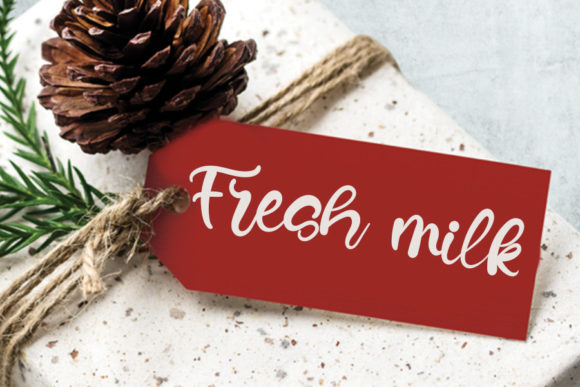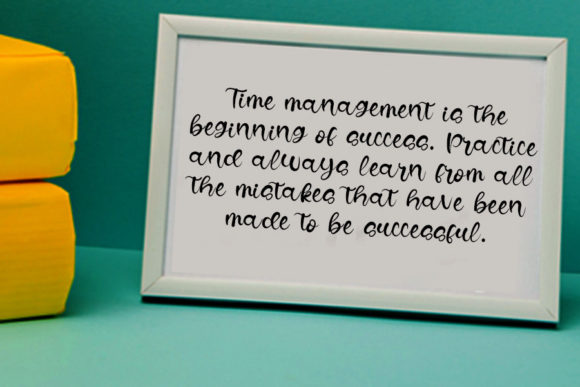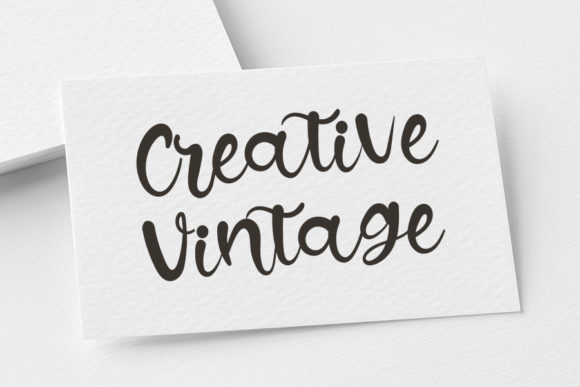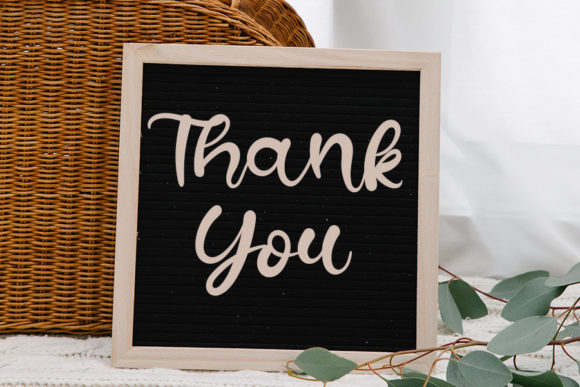
Introducing Farmhouse Font: Elevate Your Designs with Elegance and Class
Are you a designer or crafter looking for a font that adds a touch of sophistication and refinement to your work? Look no further than Farmhouse Font, a lovely and delicate script font that exudes elegance and class. In this article, we’ll explore the features and benefits of Farmhouse Font, and how it can elevate your designs to the next level.
Farmhouse Font is a beautiful script font that was particularly crafted for those who need a beautiful and refreshing look to their designs. With its delicate and elegant strokes, this font is perfect for adding a touch of sophistication to any design project. Whether you’re working on a branding project, a wedding invitation, or a craft project, Farmhouse Font is sure to impress.
So, what makes Farmhouse Font so special? Here are just a few of its key features:
- Elegant and Delicate Strokes: Farmhouse Font features elegant and delicate strokes that add a touch of sophistication to any design.
- Script Font Style: This font is a beautiful script font that is perfect for adding a touch of elegance and refinement to your designs.
- Refreshing and Beautiful: Farmhouse Font is particularly crafted to provide a refreshing and beautiful look to your designs.
- Easy to Read: Despite its delicate nature, Farmhouse Font is easy to read, making it perfect for body text and headings.
Benefits of Using Farmhouse Font
So, why should you choose Farmhouse Font for your design projects? Here are just a few benefits of using this beautiful font:
- Adds Elegance and Class: Farmhouse Font adds a touch of elegance and class to any design project, making it perfect for high-end branding and luxury goods.
- Versatile: This font is versatile and can be used for a variety of design projects, from wedding invitations to craft projects.
- Unique and Eye-Catching: Farmhouse Font is a unique and eye-catching font that will set your designs apart from the crowd.
- Easy to Pair: This font is easy to pair with other fonts, making it perfect for use in combination with other typography.
How to Use Farmhouse Font in Your Designs
So, how can you use Farmhouse Font in your designs? Here are a few ideas to get you started:
- Branding and Logo Design: Use Farmhouse Font to add a touch of elegance and sophistication to your branding and logo design projects.
- Wedding Invitations: This font is perfect for wedding invitations and other wedding stationery.
- Craft Projects: Farmhouse Font is great for craft projects, such as handmade cards and gift tags.
- Digital Designs: Use this font in your digital designs, such as social media graphics and blog posts.
Tips for Getting the Most Out of Farmhouse Font
Here are a few tips for getting the most out of Farmhouse Font:
- Use it Sparingly: Use Farmhouse Font sparingly to add a touch of elegance and sophistication to your designs.
- Pair it with Other Fonts: Pair Farmhouse Font with other fonts to create a unique and eye-catching typography combination.
- Experiment with Colors: Experiment with different colors to find the perfect combination that works with Farmhouse Font.
In conclusion, Farmhouse Font is a beautiful and elegant script font that is perfect for designers and crafters looking to add a touch of sophistication and refinement to their work. With its delicate and elegant strokes, this font is sure to impress. Whether you’re working on a branding project, a wedding invitation, or a craft project, Farmhouse Font is a great choice. So why not give it a try and see how it can elevate your designs to the next level?